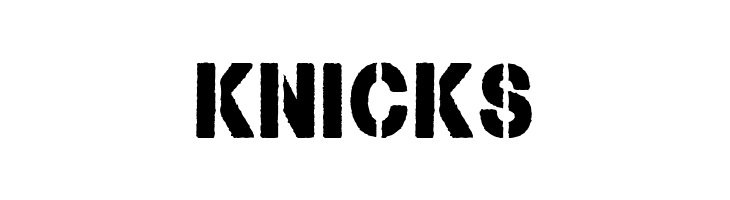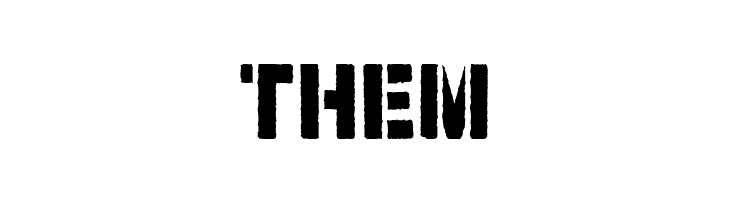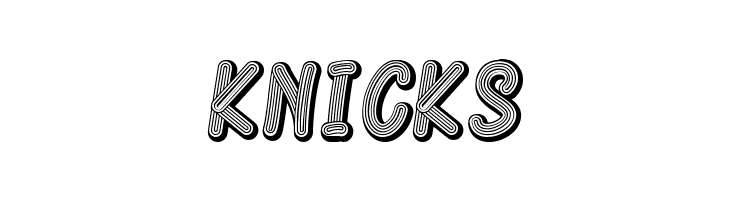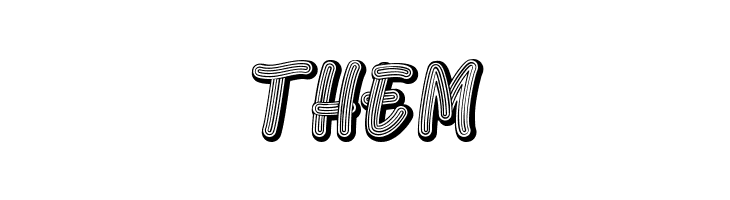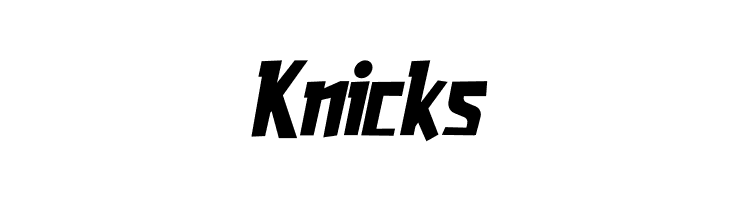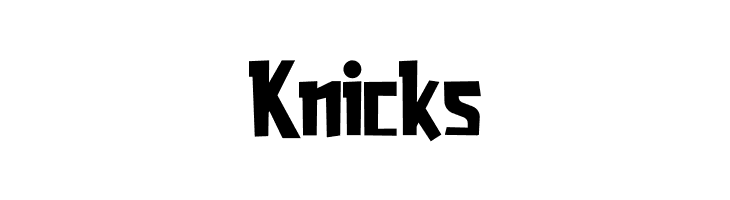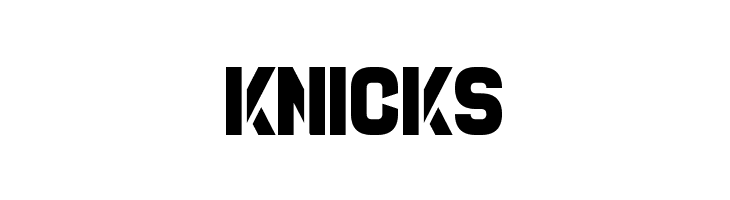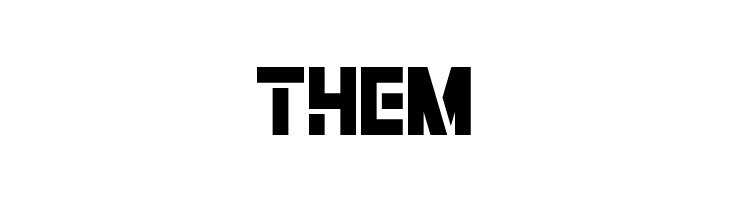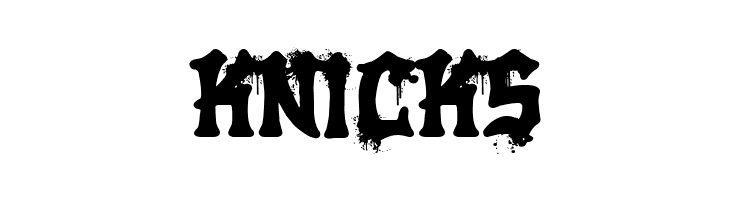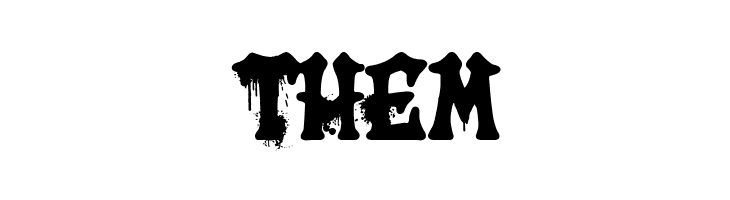
( Fonts by Woodcutter Manero - http://www.woodcutter.es - Personal-use only. For commercial use please contact owner. ) A bold, distressed font with a gritty, urban style and splatter-like details. Download 82 Downloads@WebFont
( Fonts by Zhalgas Kassymkulov - Personal-use only. For commercial use please contact owner. ) A bold, futuristic font with geometric shapes and dynamic curves. Download 144 Downloads@WebFont
( Fonts by cropstudio - crop studio - Personal-use only. For commercial use please contact owner. ) An elegant and decorative script font with playful swirls and loops. Download 39 Downloads@WebFont
( Fonts by cropstudio - crop studio - Personal-use only. For commercial use please contact owner. ) An elegant, decorative script font with intricate swirls and loops. Download 45 Downloads@WebFont
( Fonts by Woodcutter Manero - www.woodcutter.es - Personal-use only. For commercial use please contact owner. ) Hand-drawn, bold display font with a stamped, irregular look. Download 23 Downloads@WebFont
( Fonts by UI Creative - Personal-use only. For commercial use please contact owner. ) A bold, classic serif font with strong, well-defined letterforms. Download 36 Downloads@WebFont
( Fonts by Woodcutter Manero - www.woodcutter.es - Personal-use only. For commercial use please contact owner. ) A bold, rounded slab serif display font with playful, exaggerated forms. Download 25 Downloads@WebFont
( Fonts by CannotIntoSpaceFonts - KineticPlasma Fonts - Personal-use only. For commercial use please contact owner. ) A modern, angular serif font with a futuristic and bold design. Download 101 Downloads@WebFont
( Fonts by CannotIntoSpaceFonts - KineticPlasma Fonts - Personal-use only. For commercial use please contact owner. ) A modern, italic font with sleek, elongated characters and a dynamic style. Download 84 Downloads@WebFont
( Fonts by www.chequered.ink - Chequered Ink - Personal-use only. For commercial use please contact owner. ) A bold, stencil-style font with a rugged, military-inspired look. Download 75 Downloads@WebFont
( Fonts by Najoud - Personal-use only. For commercial use please contact owner. ) A modern, playful font with rounded, tubular forms and consistent stroke widths. Download 112 Downloads@WebFont
( Fonts by www.selawetype.com - Personal-use only. FOR DONATION https://www.paypal.me/selawe . For commercial use please contact owner. ) A graceful, handwritten script font with fluid, connected letters. Download 110 Downloads@WebFont
( Fonts by Kateeng Ciu - Personal-use only. For commercial use please contact owner. ) A playful and elegant script font with flowing, interconnected letterforms. Download 45 Downloads@WebFont
( Fonts by character - Personal-use only. For commercial use please contact owner. ) A bold, decorative font with vintage circus-inspired detailing. Download 171 Downloads@WebFont
( Fonts by Anomali Creative - Krisna Teja - Personal-use only. For commercial use please contact owner. ) A dynamic script font with fluid, connected strokes and a hand-drawn feel. Download 40 Downloads@WebFont
( Fonts by Elling Lien - Personal-use only. For commercial use please contact owner. ) A bold, playful font with rounded strokes and a whimsical touch. Download 45 Downloads@WebFont
( Fonts by Kotak Kuning Studio - kotakkuning.com - Personal-use only. For commercial use please contact owner. ) A bold, decorative font with a layered, dimensional effect. Download 77 Downloads@WebFont
( Fonts by a kmzero font foundry - www.zetafonts.com. Personal-use only. For commercial use please contact owner. ) A bold, cursive font with flowing, interconnected strokes and high contrast. Download 2224 Downloads@WebFont
( Fonts by PutraCetol Studio - www.putracetol.com - Personal-use only. For commercial use please contact owner. ) A tall, narrow, and angular font with a modern, geometric style. Download 39 Downloads@WebFont
( Fonts by a Neale Davidson - www.pixelsagas.com. Personal-use only. For commercial use please contact owner. ) A bold, geometric font with an industrial, robust aesthetic. Download 448 Downloads@WebFont
( Fonts by a Neale Davidson - www.pixelsagas.com. Personal-use only. For commercial use please contact owner. ) A bold, geometric font with a strong and angular design. Download 330 Downloads@WebFont
( Fonts by a Neale Davidson - www.pixelsagas.com. Personal-use only. For commercial use please contact owner. ) A bold, italicized font with a strong, angular, and futuristic design. Download 359 Downloads@WebFont
( Fonts by a Neale Davidson - www.pixelsagas.com. Personal-use only. For commercial use please contact owner. ) A bold, italicized font with angular, modern design. Download 473 Downloads@WebFont
( Fonts by Manfred Klein. Free for private and charity use. Free for commercial with donation to organizations ) A collection of abstract and geometric symbols with a mystical and historical flair. Download 140 Downloads@WebFont
( Fonts by Vladimir Nikolic - www.creativefabrica.com/designer/vladimirnikolic/ - Personal-use only. For commercial use please contact owner. ) A bold, decorative font with a vintage military style and three-dimensional effect. Download 43 Downloads@WebFont
( Fonts by Wino S Kadir - weknow - www.revolge.com/shop/weknow/ - Personal-use only. For commercial use please contact owner. ) A bold, decorative font with playful circular embellishments and vintage flair. Download 64 Downloads@WebFont